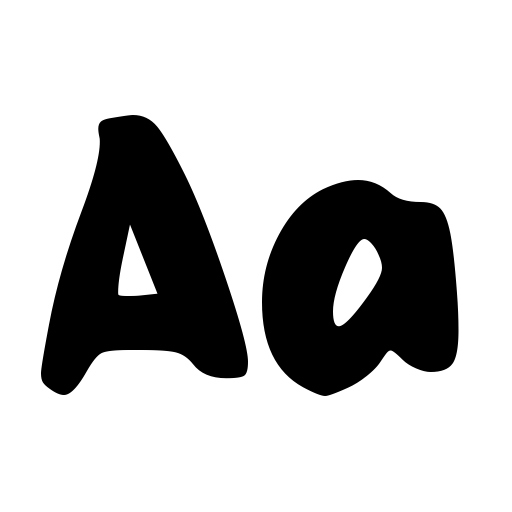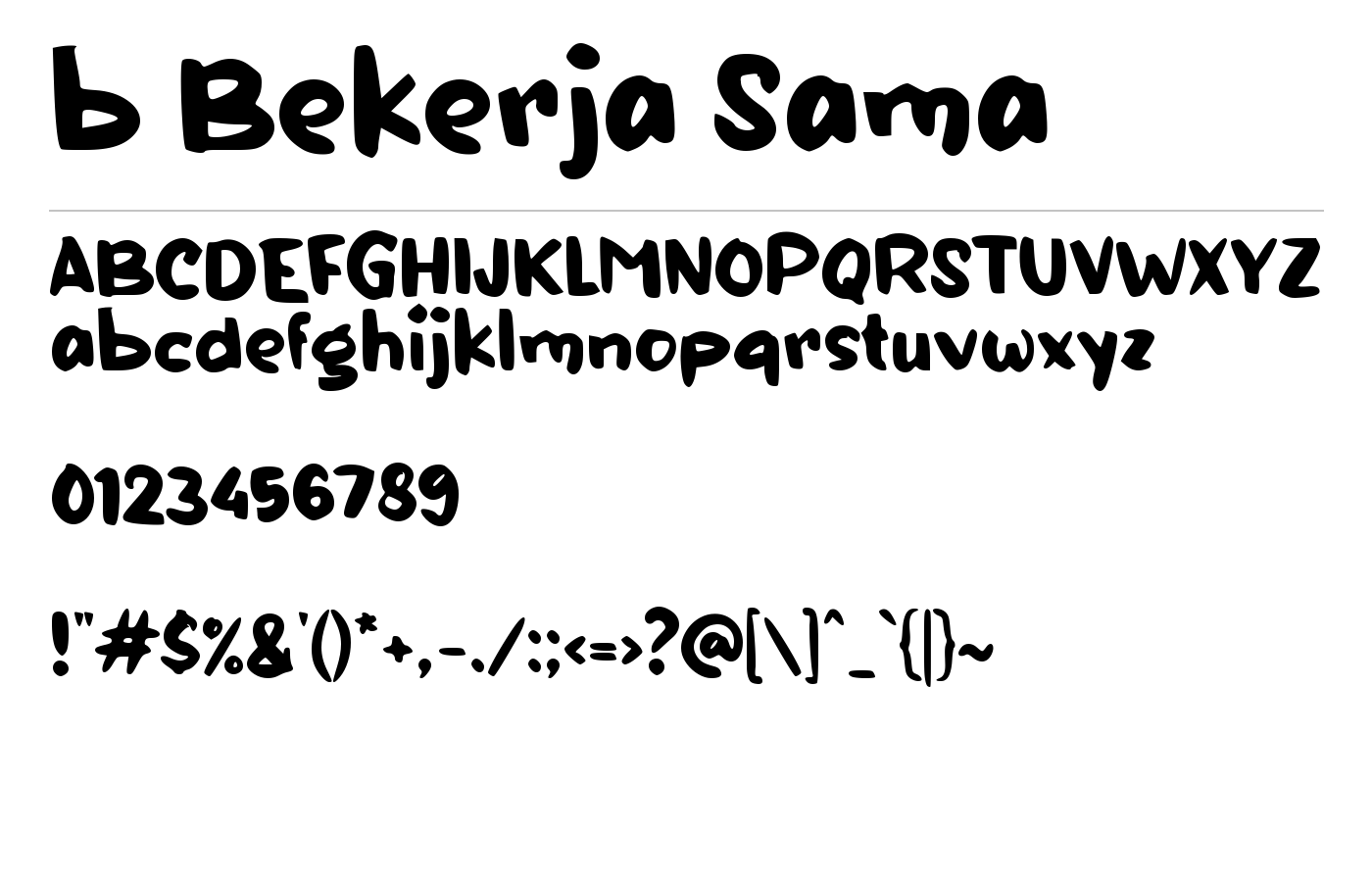
Bekerja Sama is a playful and casual handwritten font characterized by its chunky, rounded letterforms and uneven strokes that give it a warm, friendly feel. Its bold weight and generous spacing make it perfect for informal designs, children's projects, or any creative work that aims to convey approachability and fun. This font works well in eye-catching headlines, posters, and branding where a relaxed, personal touch is desired.
b Bekerja Sama Font